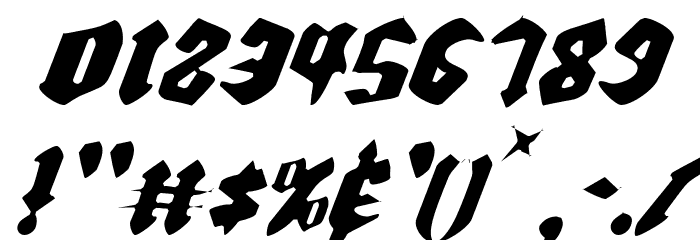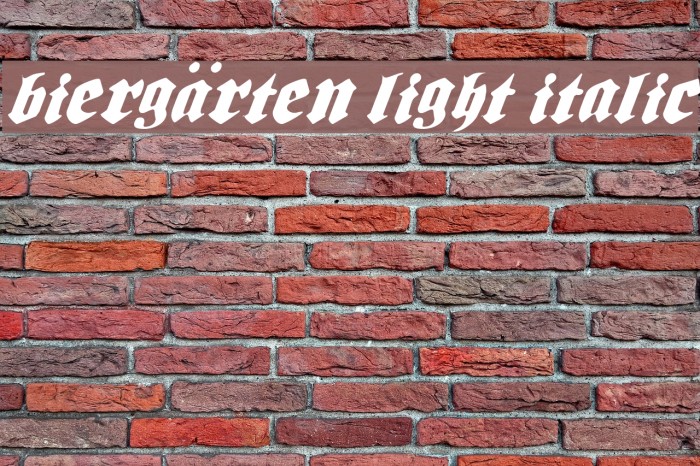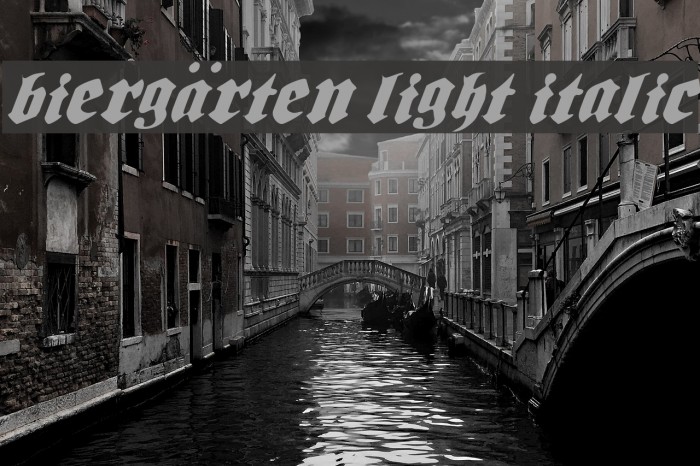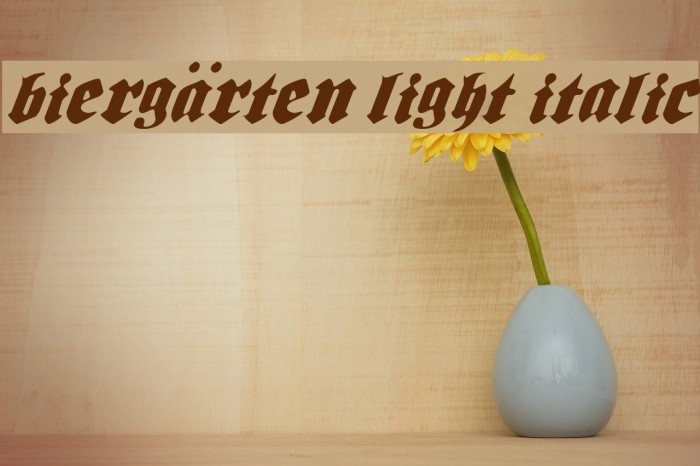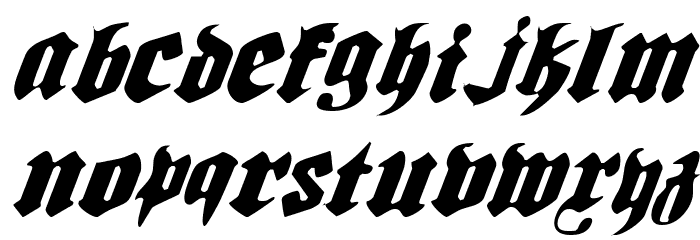
Biergärten Light Italic Font
Biergärten Light Italic Description
This font exhibits a bold and dramatic style with a strong emphasis on angular and sharp edges, reminiscent of traditional Blackletter typefaces. The characters are intricately designed, featuring high contrast between thick and thin strokes, which adds to its ornate and decorative appearance. The font maintains a consistent slant, enhancing its italic nature, and the letterforms are tightly spaced, creating a compact and cohesive look. The uppercase and lowercase letters share a uniform design, while the numerals and special characters complement the overall aesthetic, making it suitable for projects that require a historical or gothic touch.
| Use Case | Logos, Headlines, Posters |
| Proposed Projects | Ideal for use in branding, posters, book covers, and any design that seeks a gothic or medieval theme. |